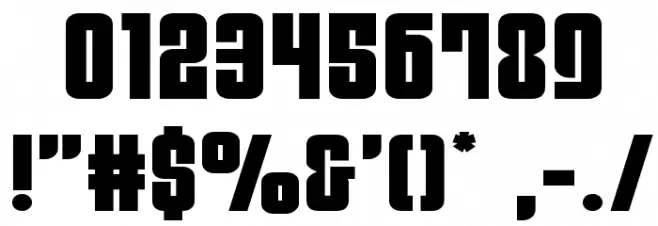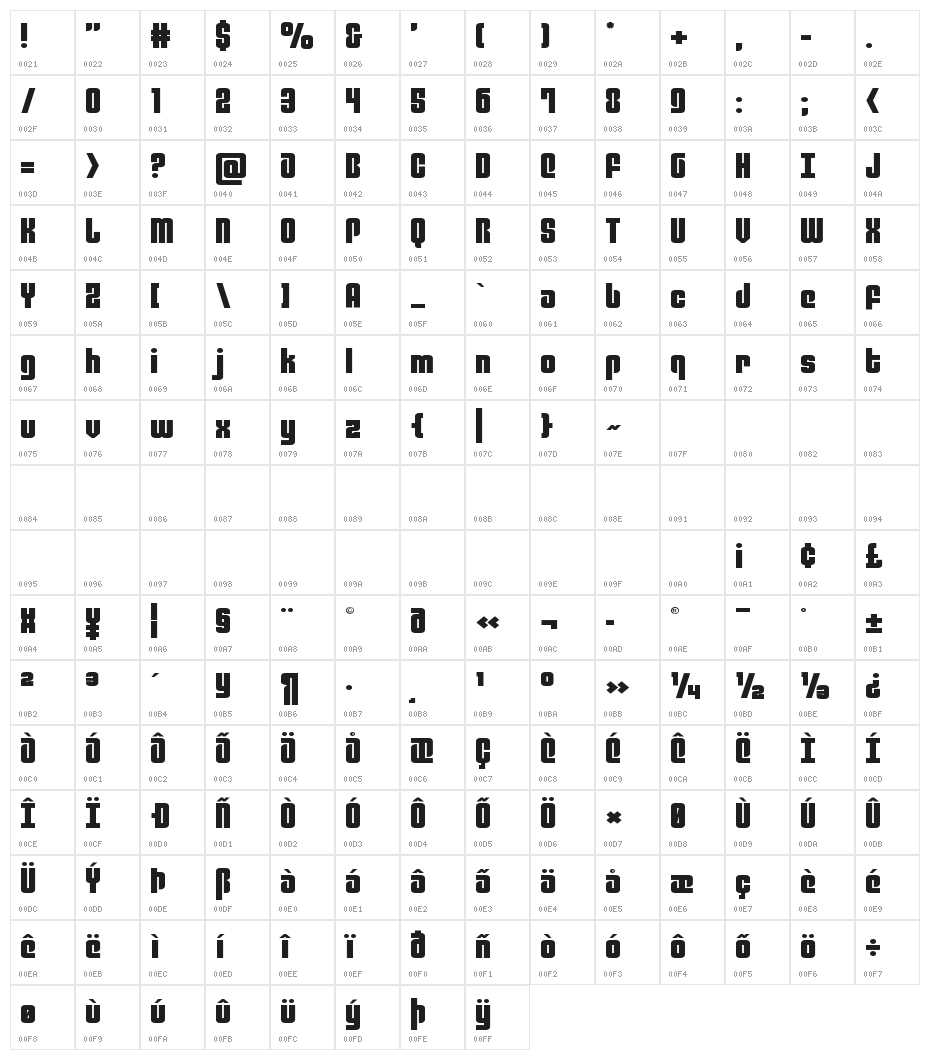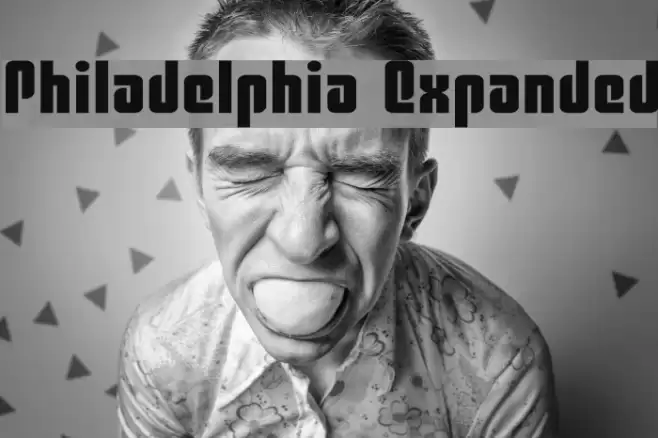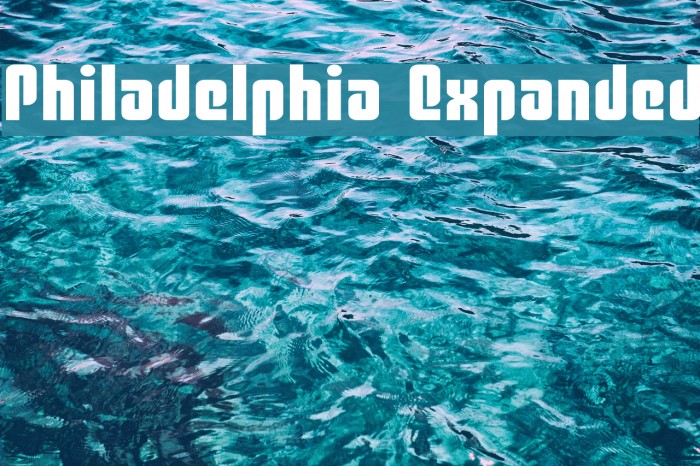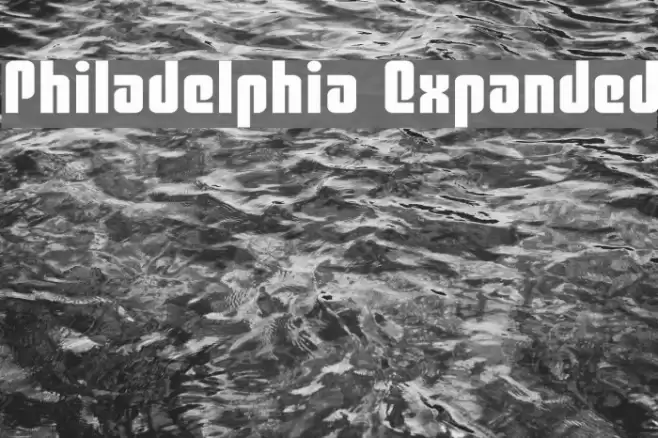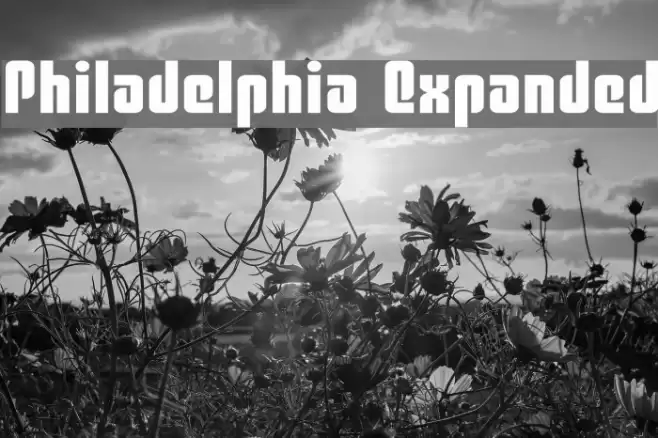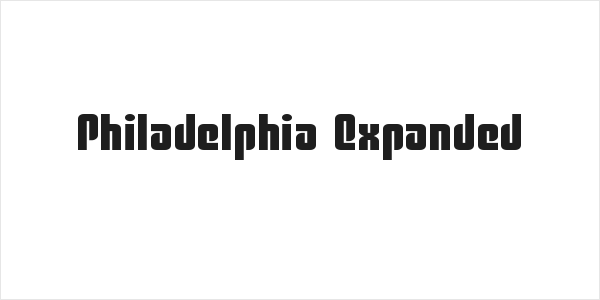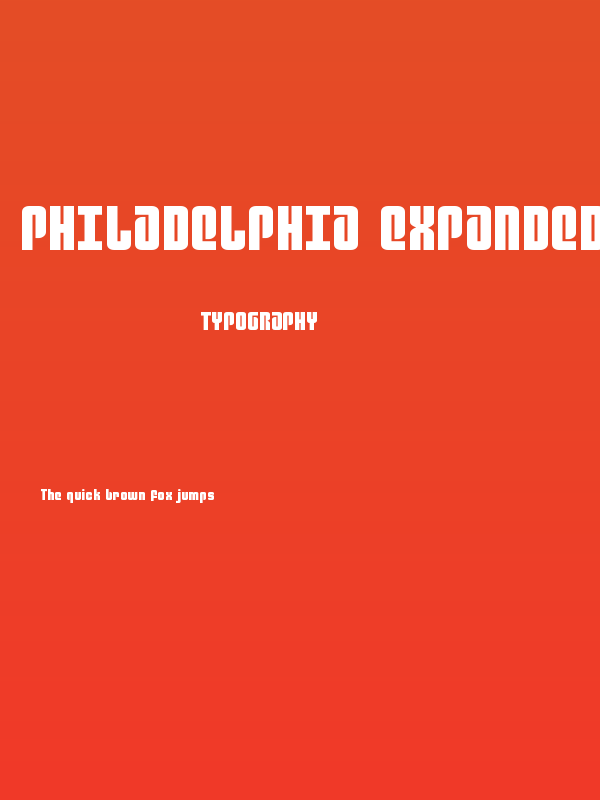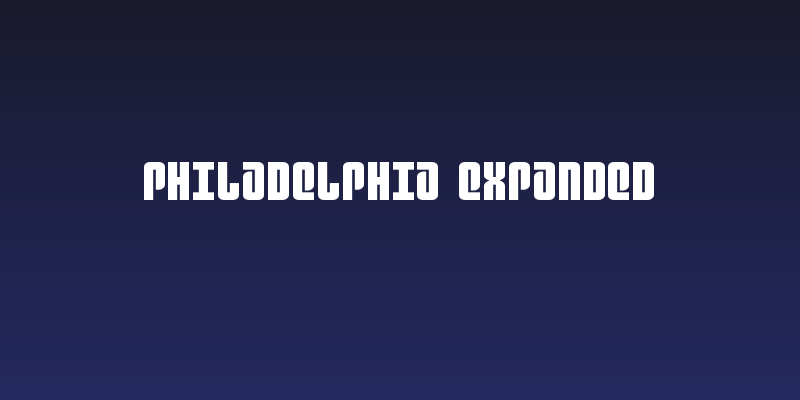
Philadelphia Expanded Font
Philadelphia Expanded Description
This font features a bold and striking design with a strong presence, characterized by its expanded width and blocky, geometric shapes. The uppercase and lowercase letters maintain a consistent height, creating a uniform appearance. The numerals and special characters are designed to match the boldness of the alphabet, ensuring a cohesive look across all text. The font's thick strokes and minimal contrast give it a robust and impactful style, making it ideal for attention-grabbing designs.
| Proposed Projects | Ideal for posters, headlines, branding, and any design requiring a strong visual impact. |